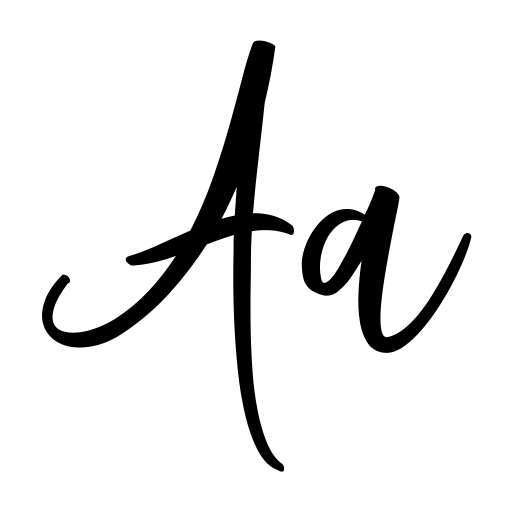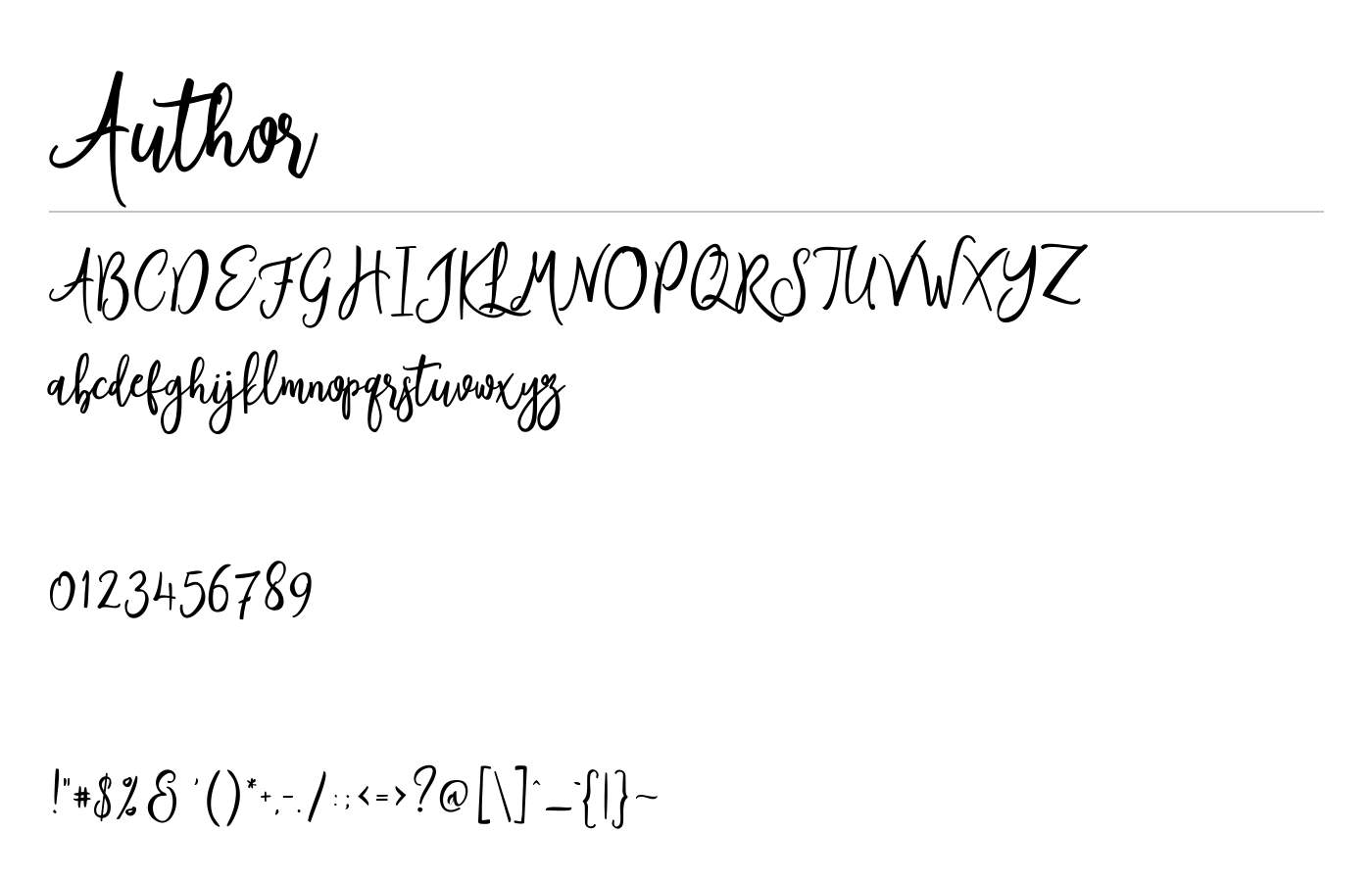
Author Font is a playful and elegant script typeface characterized by its flowing, hand-drawn style with varying stroke widths that evoke a lively, personal touch. Its tall, slender letterforms with whimsical curves and flourishes make it ideal for creative branding, invitations, and headlines where a friendly yet sophisticated feel is desired. This font works well to add warmth and charm, especially in fashion, lifestyle, or artistic contexts.
Author Font
About Author Font